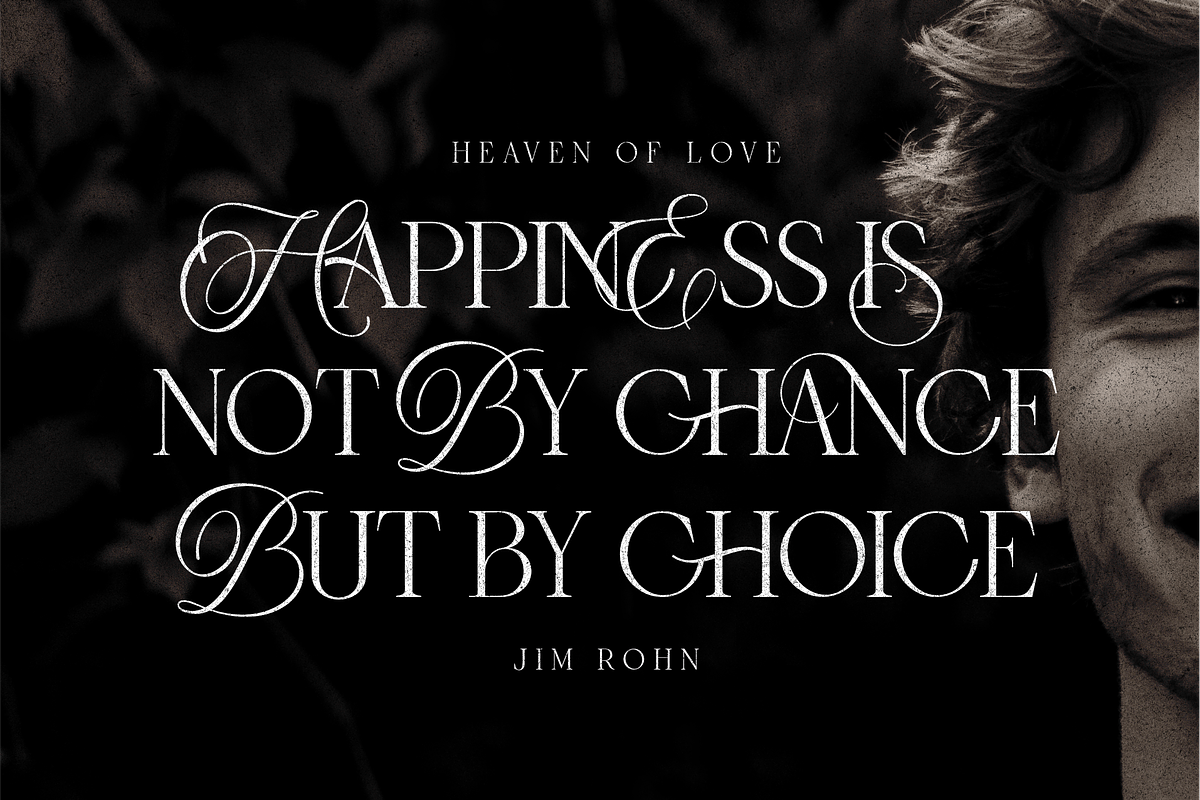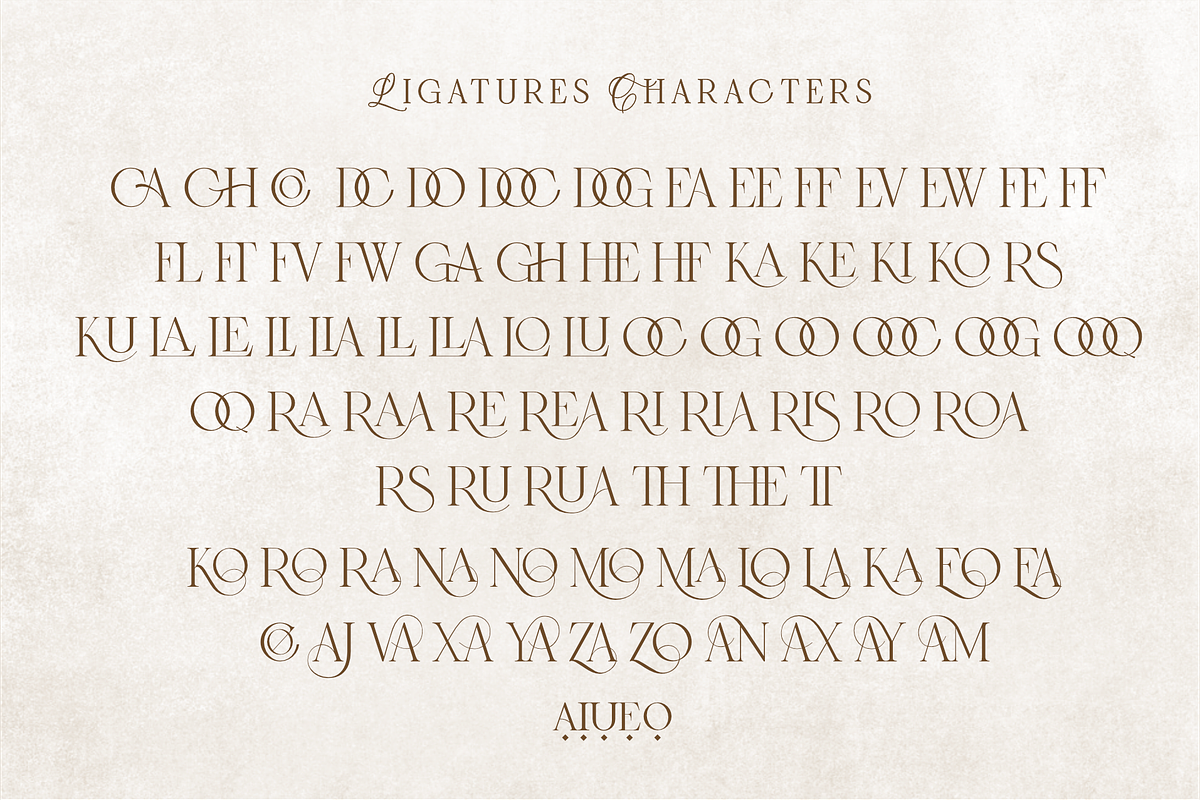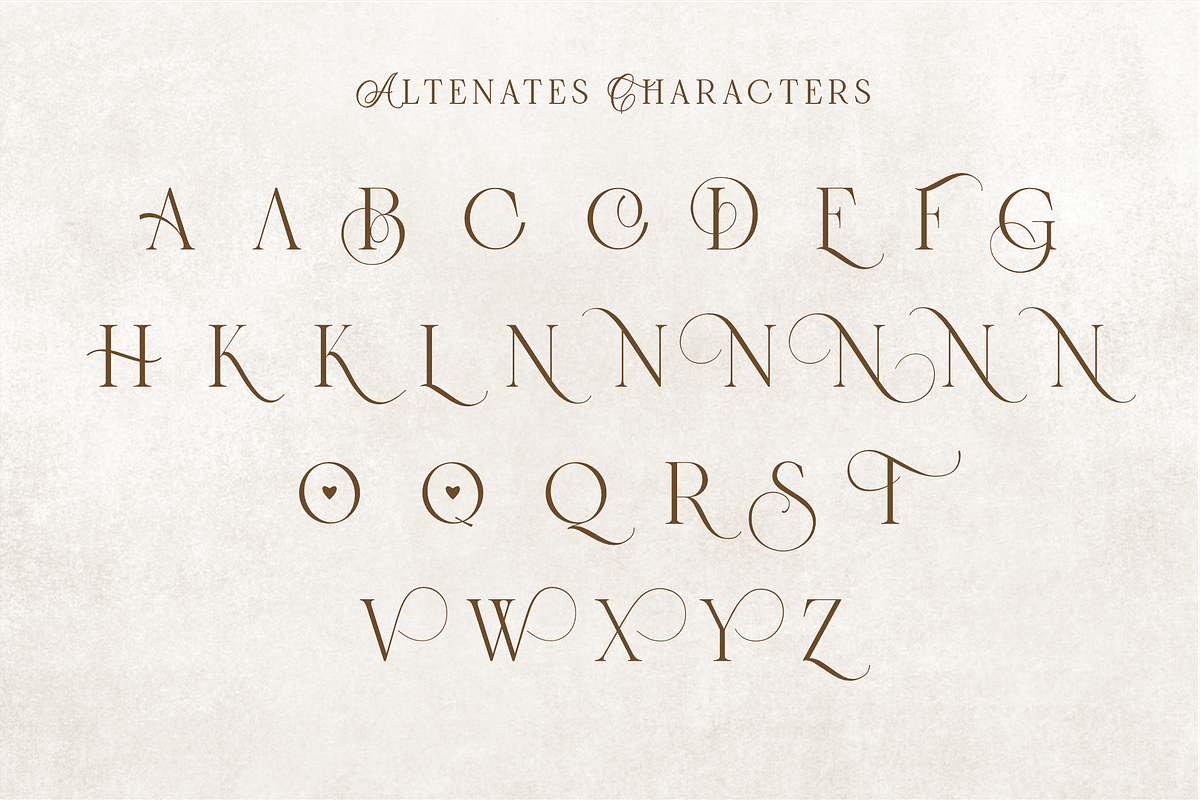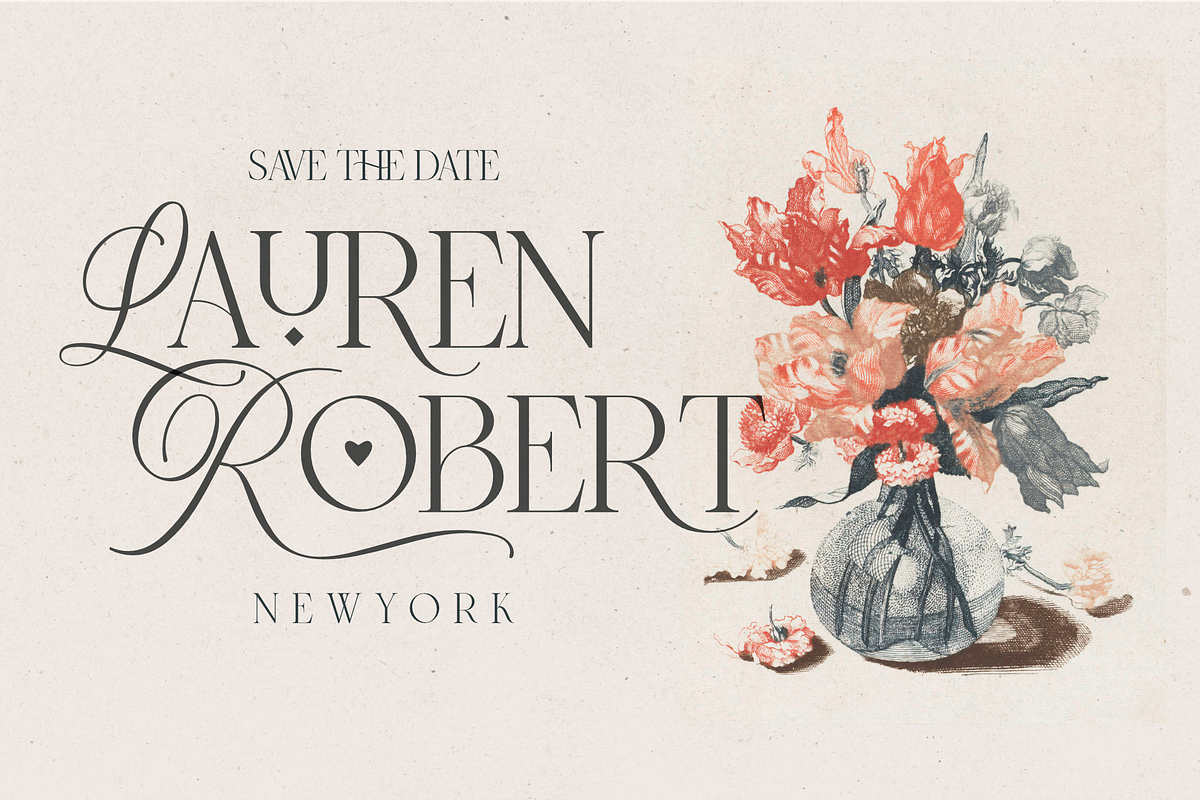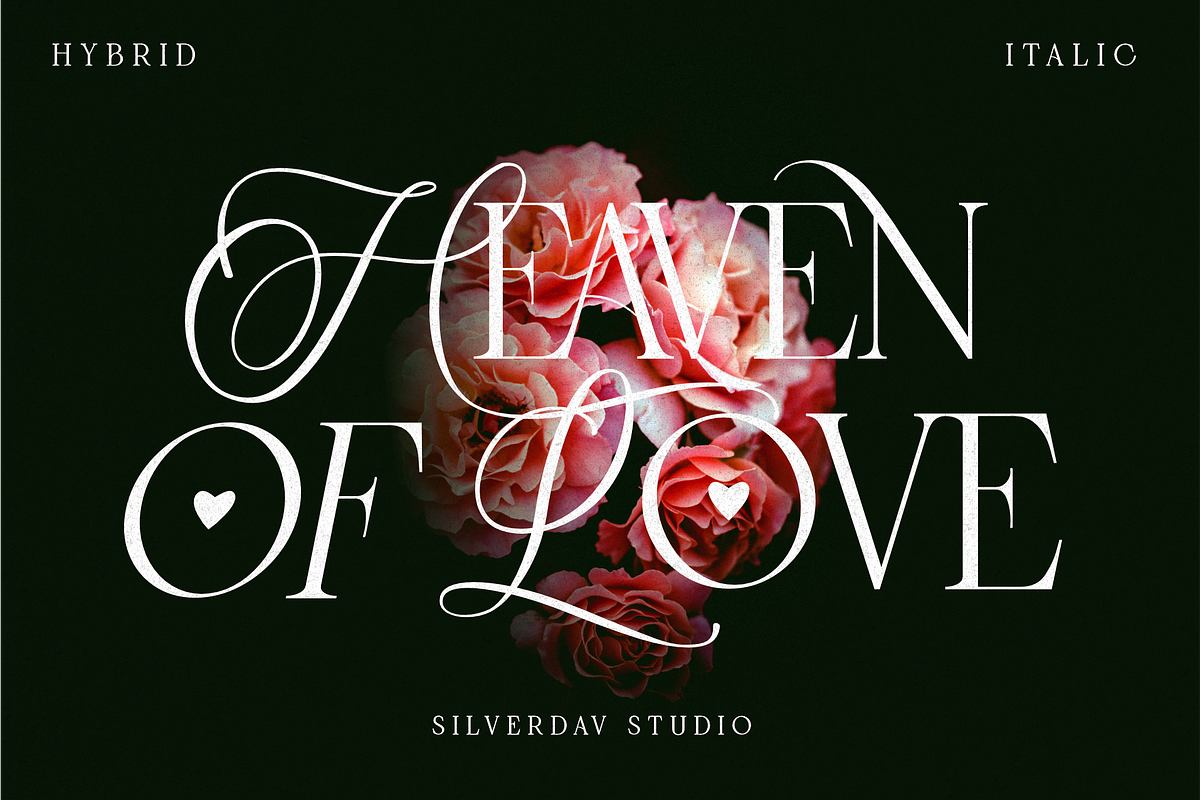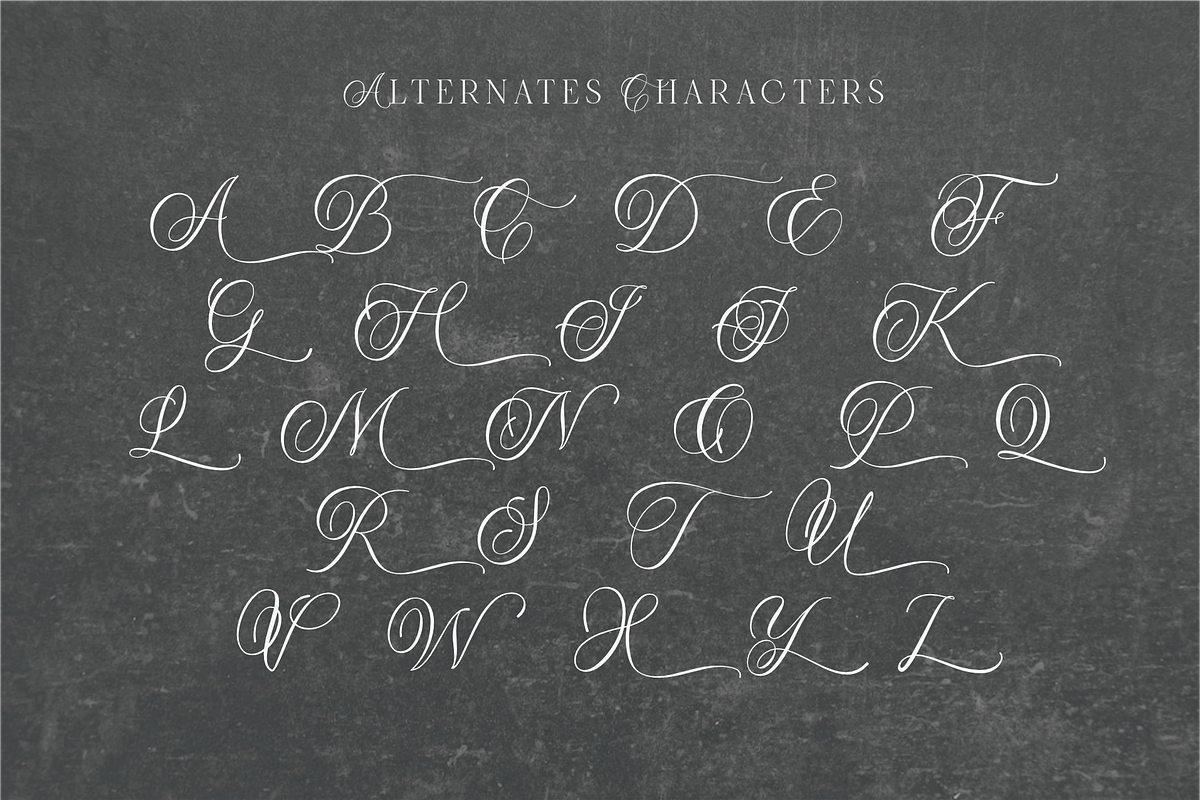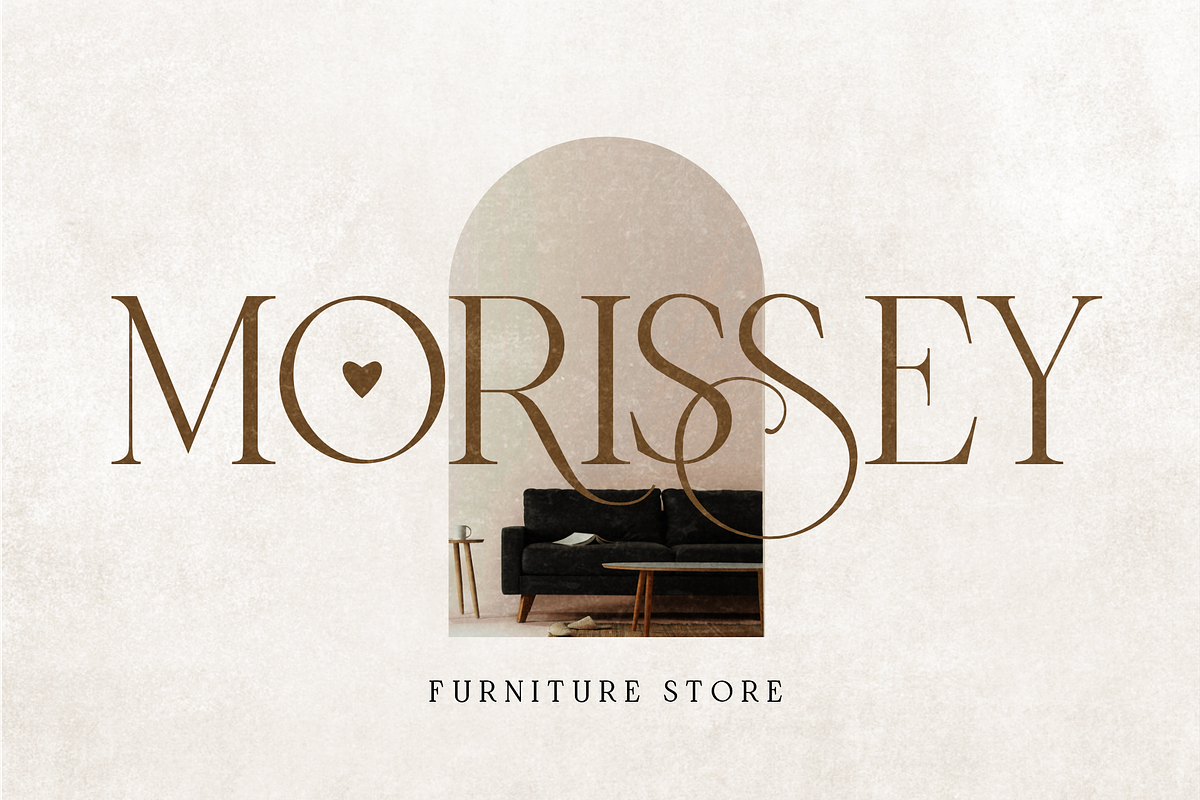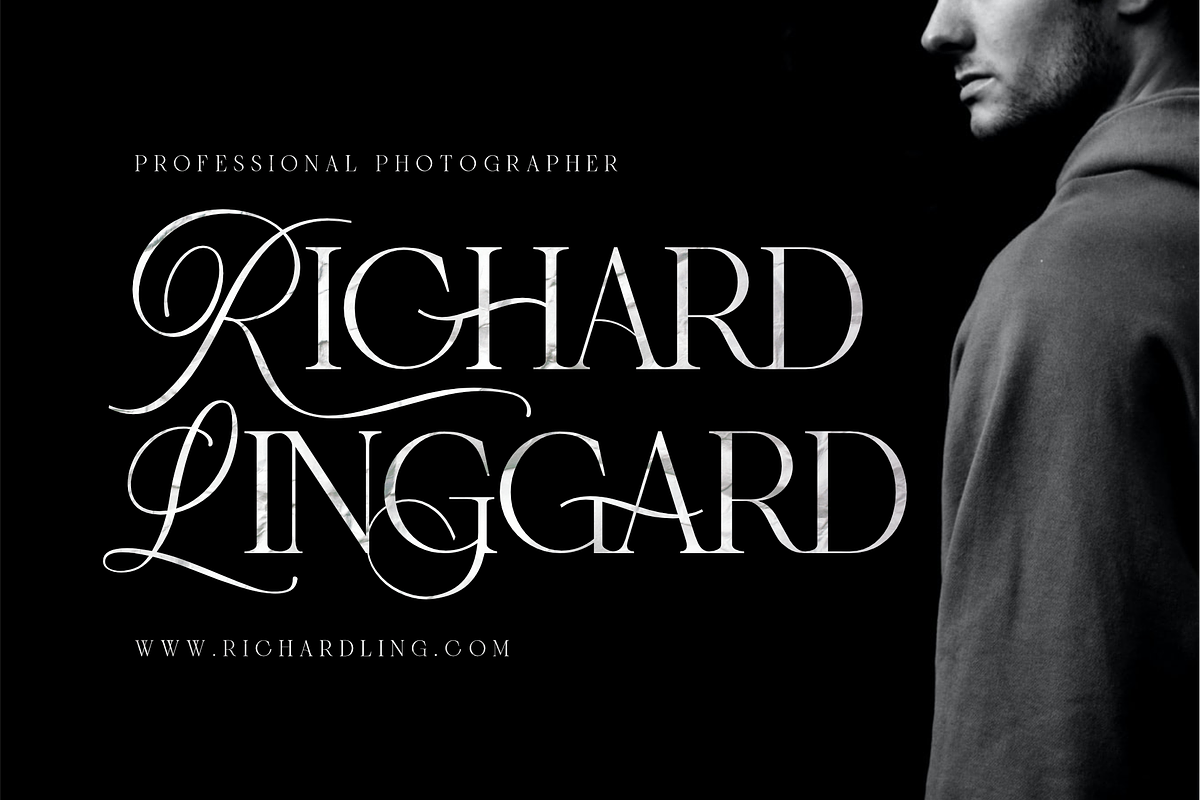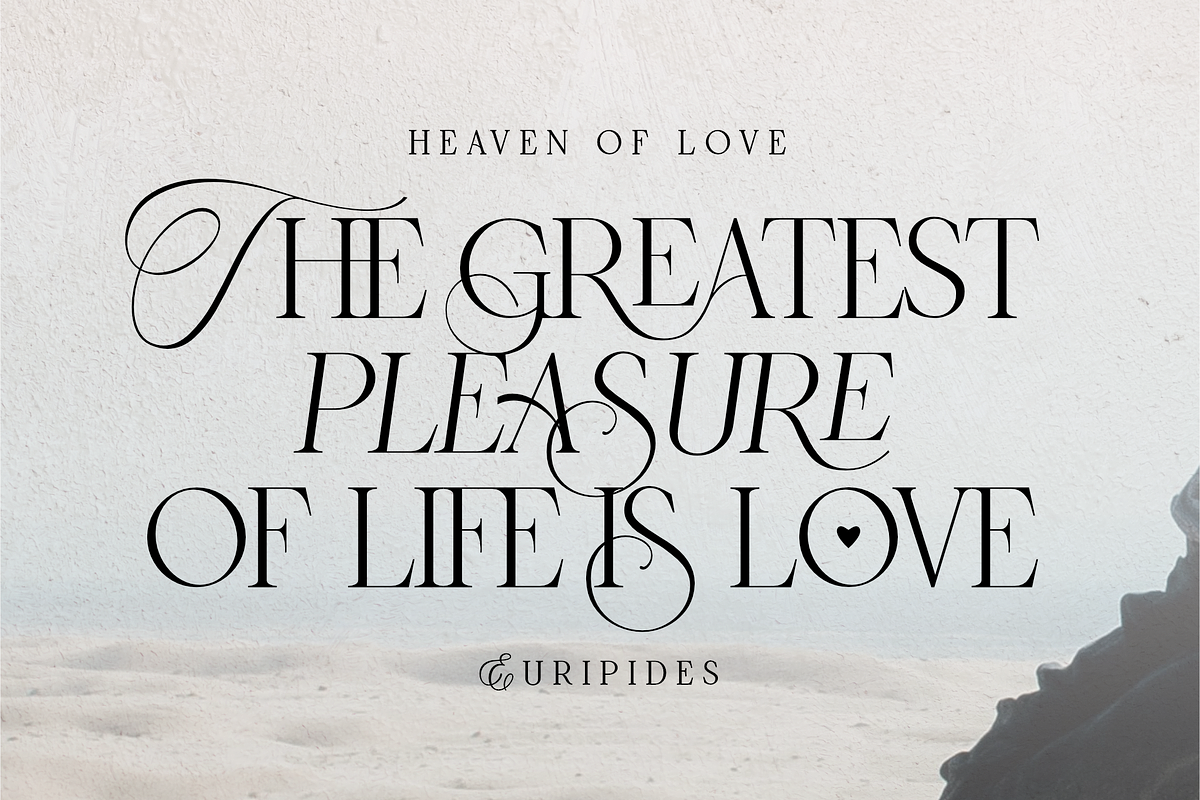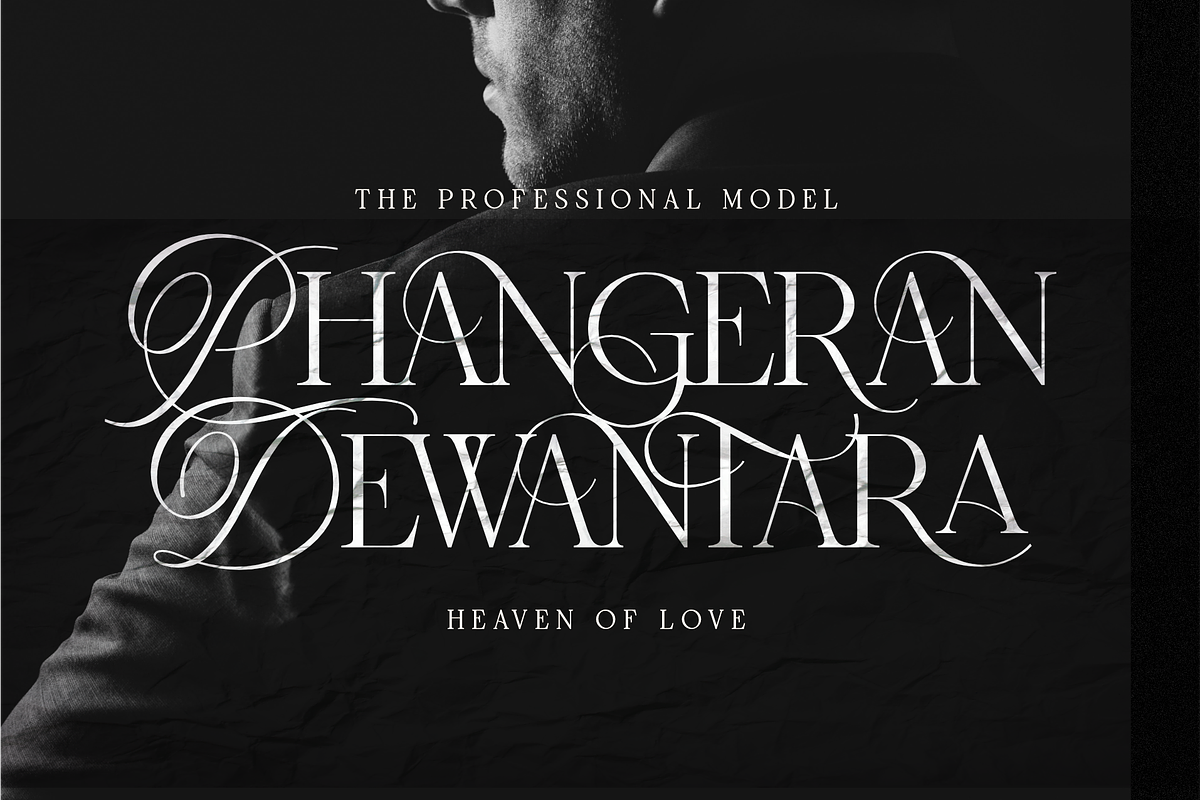
Heaven Of Love | Ligature Serif
Introducing Heaven Of Love font, a multi-faceted typeface, with a beautiful and inspiring mix of classic calligraphy and modern serif, with 3 different styles, minimal elegant serif Regular, Italic, and Hybrid mix between Calligraphy and Serif
With a total of 86 unique Ligatures, 26 uppercase Alternates, 32 lowercase Alternates, and easy to access
Heaven Of Love font is perfect for creating headlines, titles, quotes, advertisements, logos, branding, magazines, websites, wedding invitations, and classic and vintage designs
There is beauty when you use a font with the Hybrid version, with a stunning blend, of course, it will make your design look more beautiful, bringing a touch of luxury to every plan you make.
Heaven Of Love Features :
Fullset of standard alphabet, number & punctuation
86 Serif Ligatures
26 Calligraphy Uppercase Alternates
32 Serif Lowercase Alternates
Multilingual Support Over 90 Languages